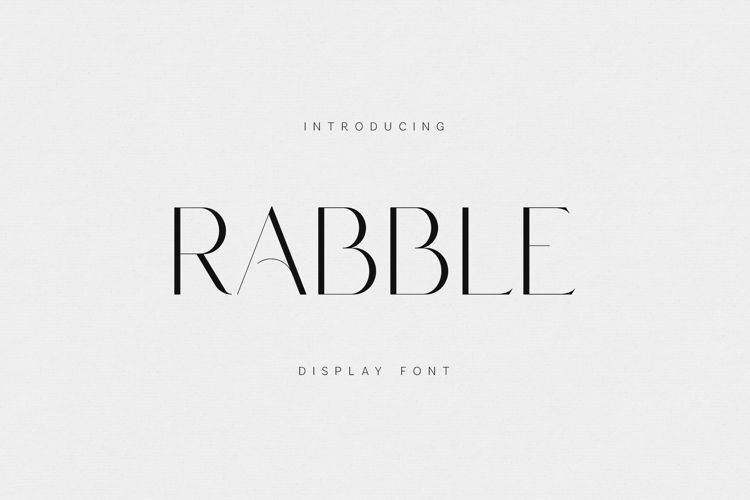
Rabble Elegant Editorial Display Serif
Rabble is an elegant display serif font designed for striking editorial typography and refined visual storytelling. Featuring high contrast strokes, elongated proportions, and delicate details, Rabble delivers a sophisticated, fashion-forward voice with a contemporary edge.
This typeface is ideal for magazine layouts, luxury branding, headlines, posters, album artwork, fashion campaigns, and premium editorial projects. Its sculpted letterforms feel confident and expressive, while the generous spacing and clean structure maintain clarity and elegance at large sizes.
Rabble shines best as a display font, where its character can fully breathe — perfect for titles, covers, logos, and statements that demand attention without excess.
The font includes uppercase and lowercase letters, numerals, punctuation, symbols, and multilingual support, making it suitable for professional and international design use.
If you’re looking for a display serif that feels modern, editorial, and unmistakably premium, Rabble brings high-end typography with attitude and restraint.